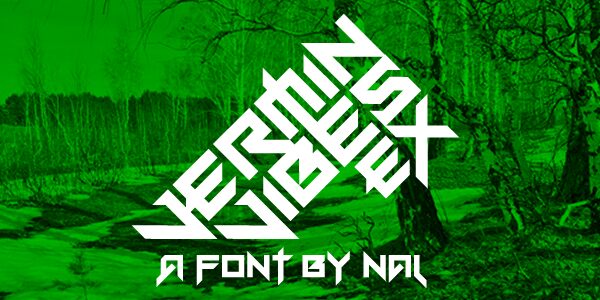
Vermin Vibes eX by Andrew McCluskey is a free modern Gothic display font with a hard, futuristic silhouette. Broad letters are cut by sharp diagonals, deep notches, and angular openings. Several letterforms resemble pieces of folded metal.
Those blade-like cuts echo the geometry of spacecraft, armor, and game-interface illustrations. They make the font a natural fit for science-fiction posters, action-game branding, and electronic music packaging. In merchandise, the recurring spikes can extend into a mechanical emblem.